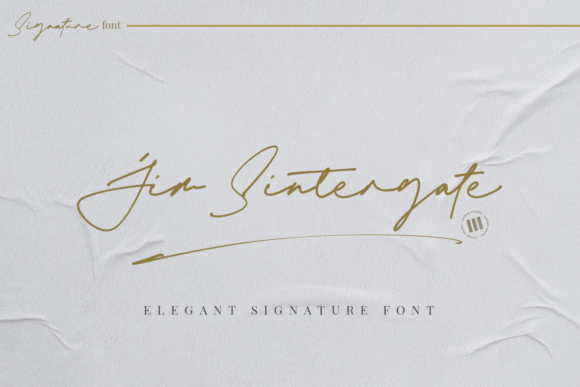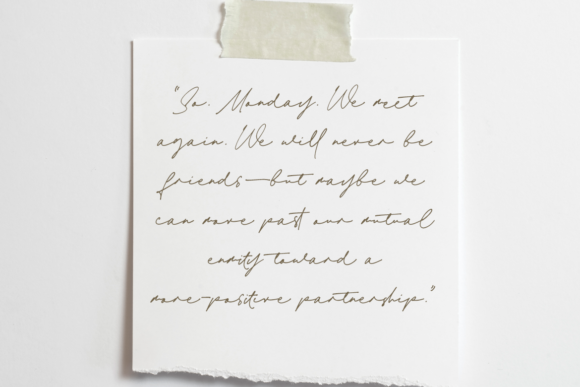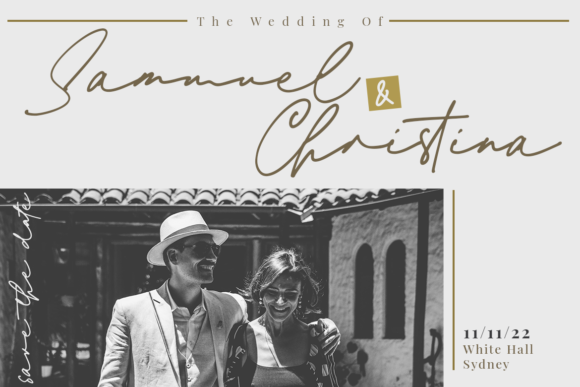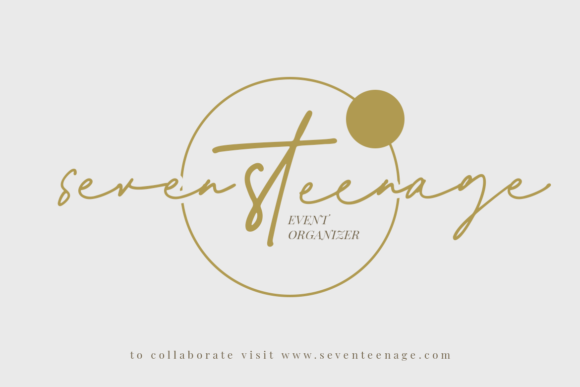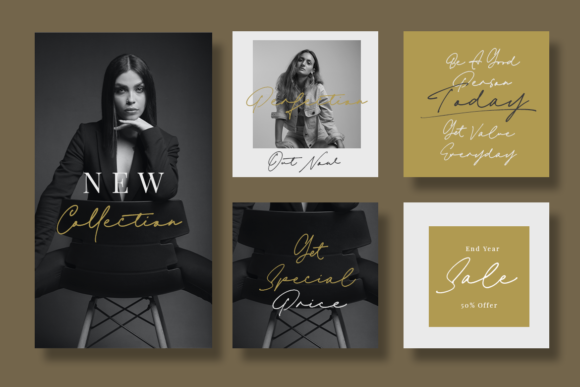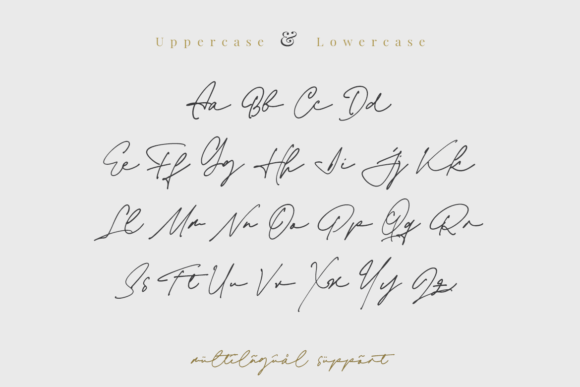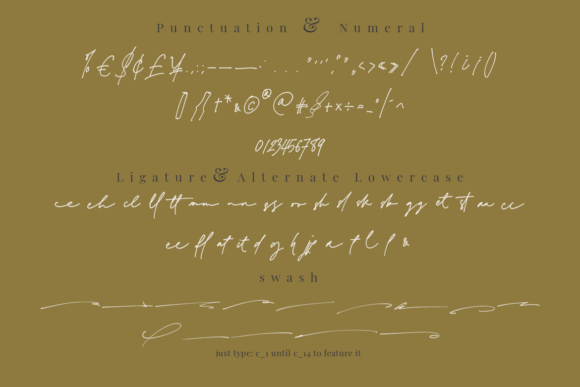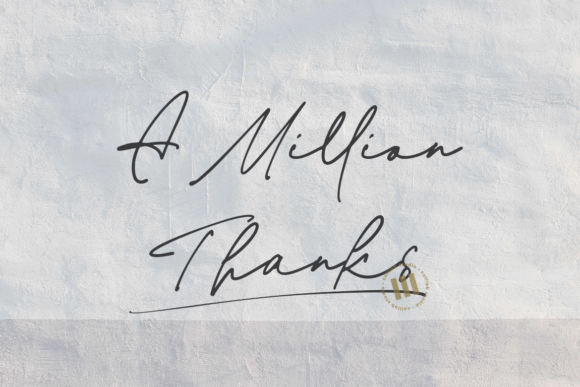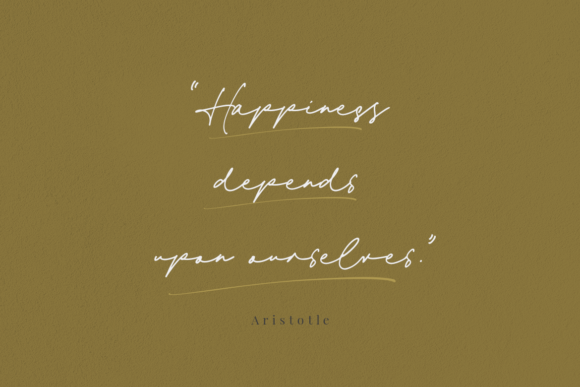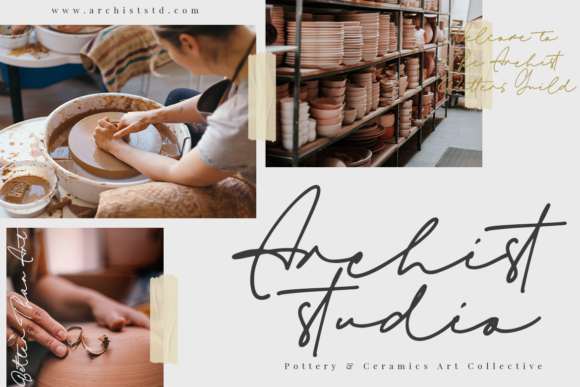
Jim Sintergate Font
About Jim Sintergate Font
Jim Sintergate is a timeless and incredibly relaxed handwritten font. It looks stunning on wedding invitations, thank you cards, quotes, greeting cards, logos, business cards and every other design which needs a handwritten touch. This font is PUA encoded which means you can access all of the glyphs and swashes with ease!